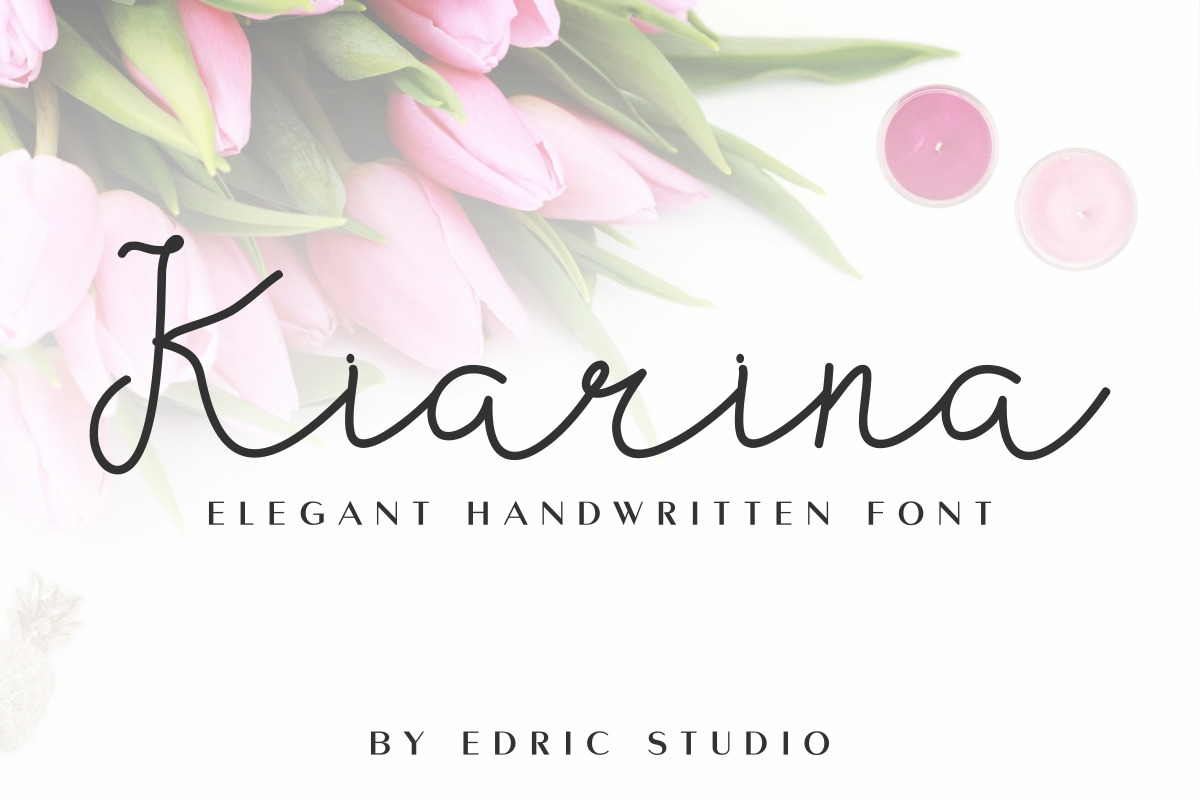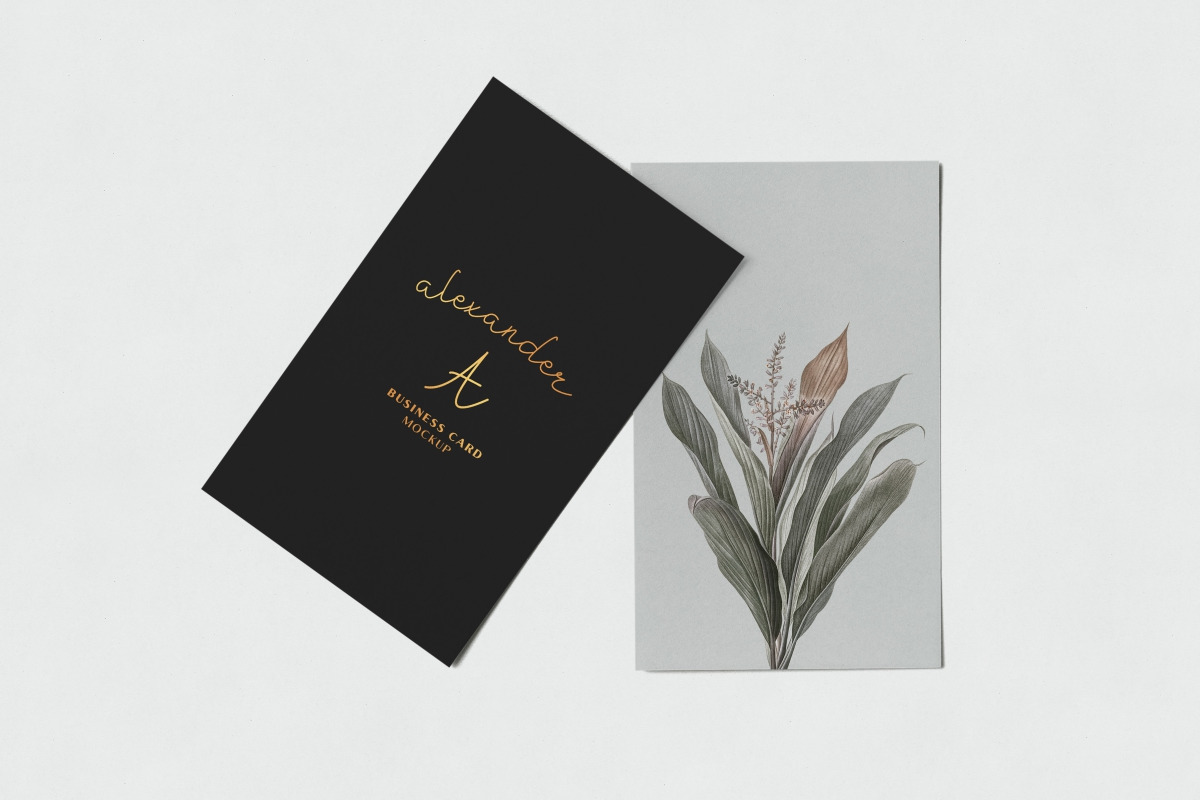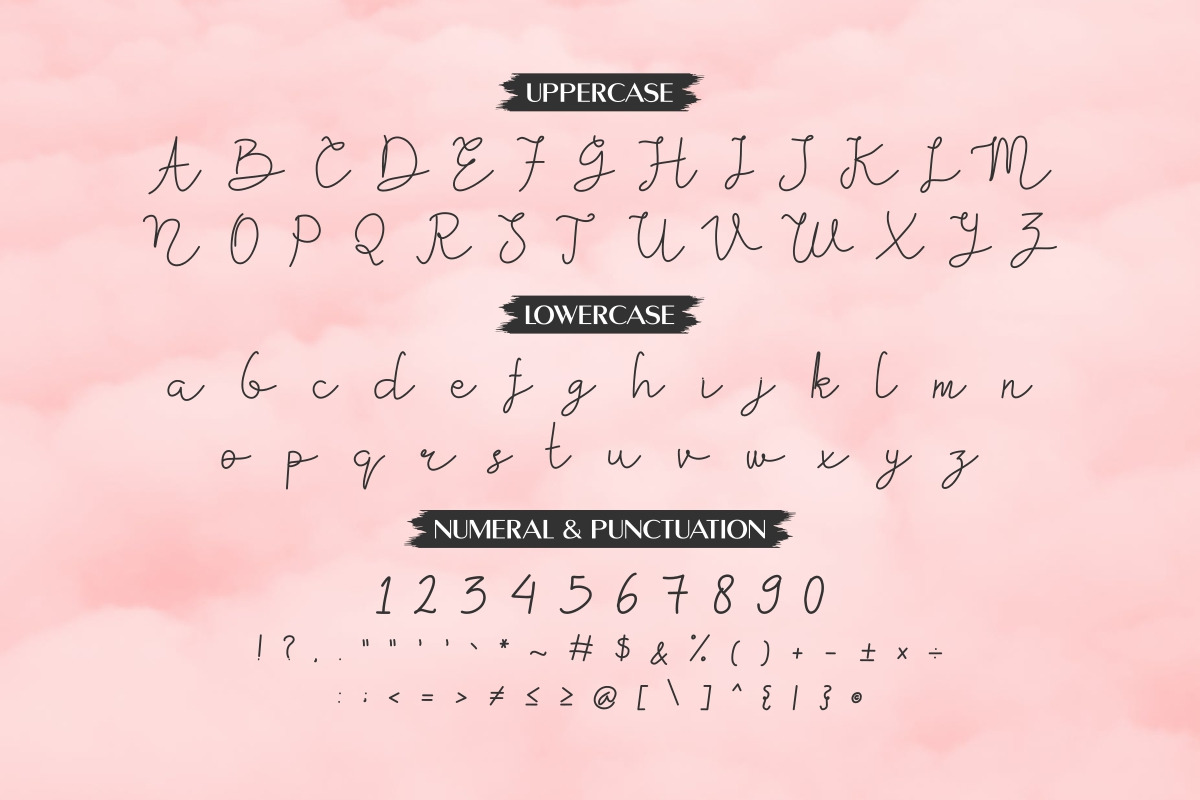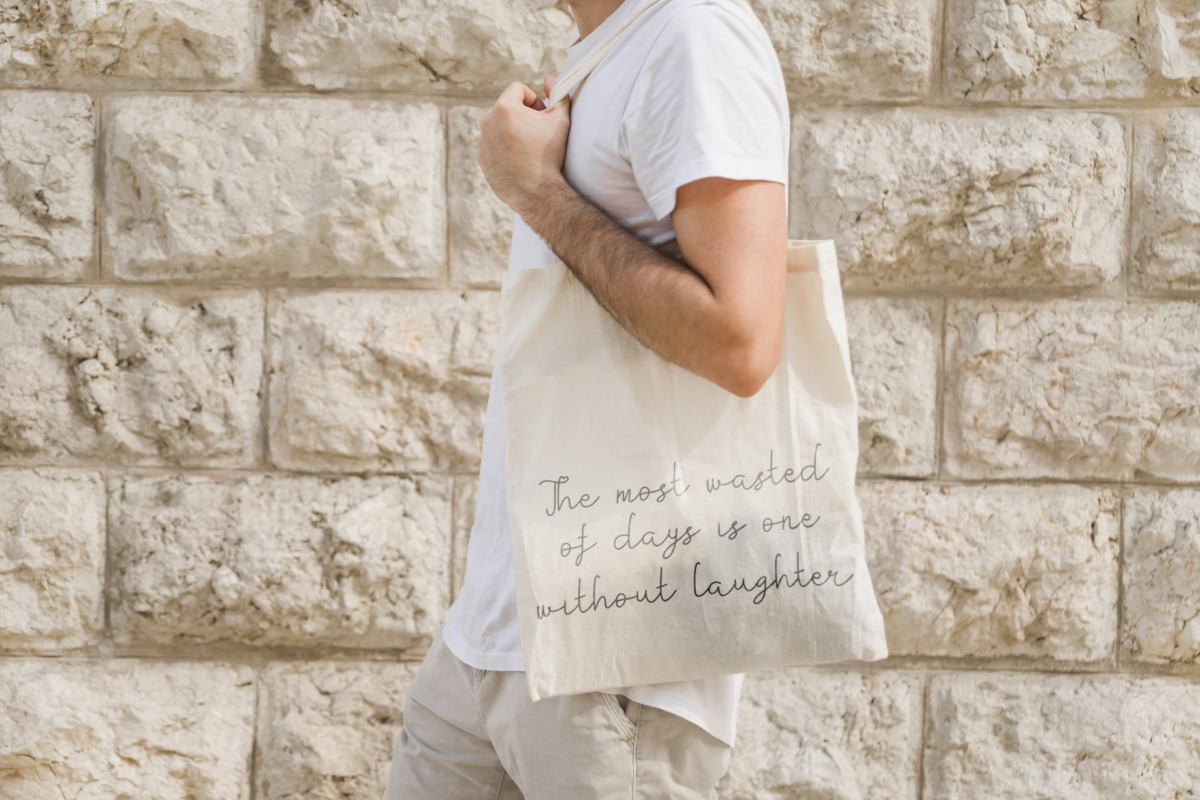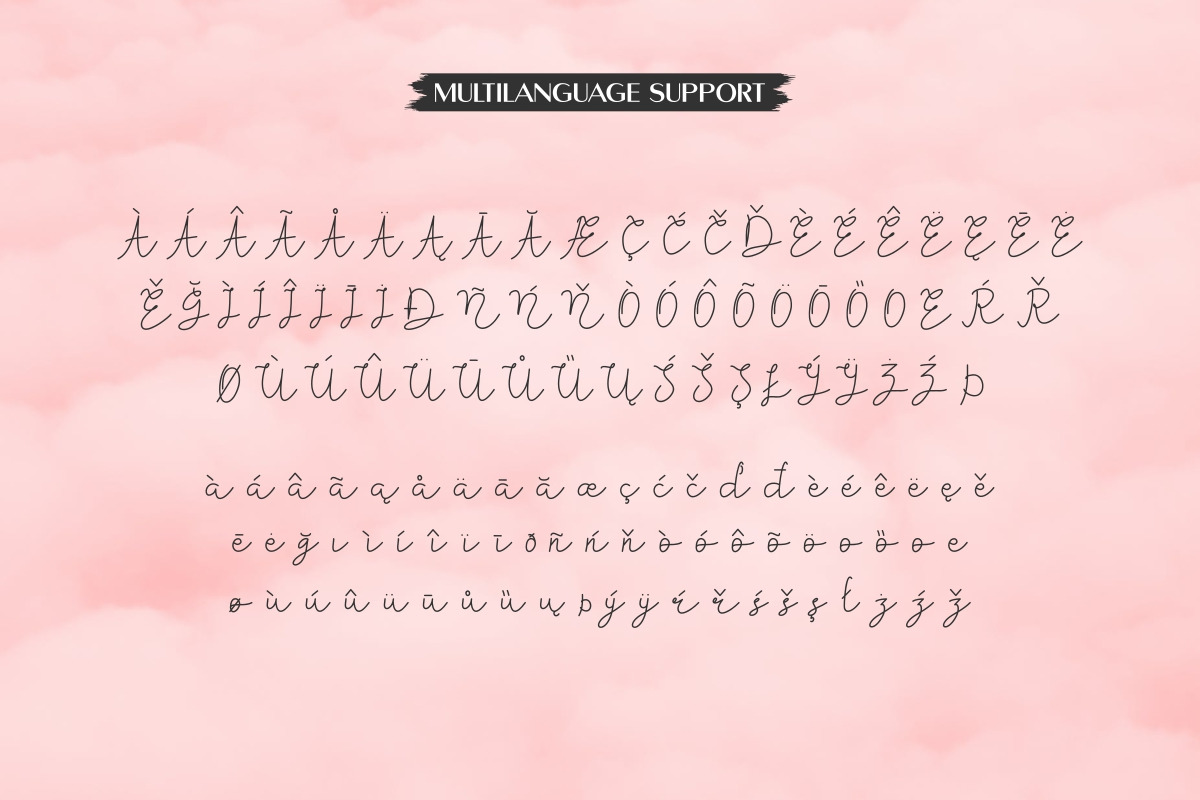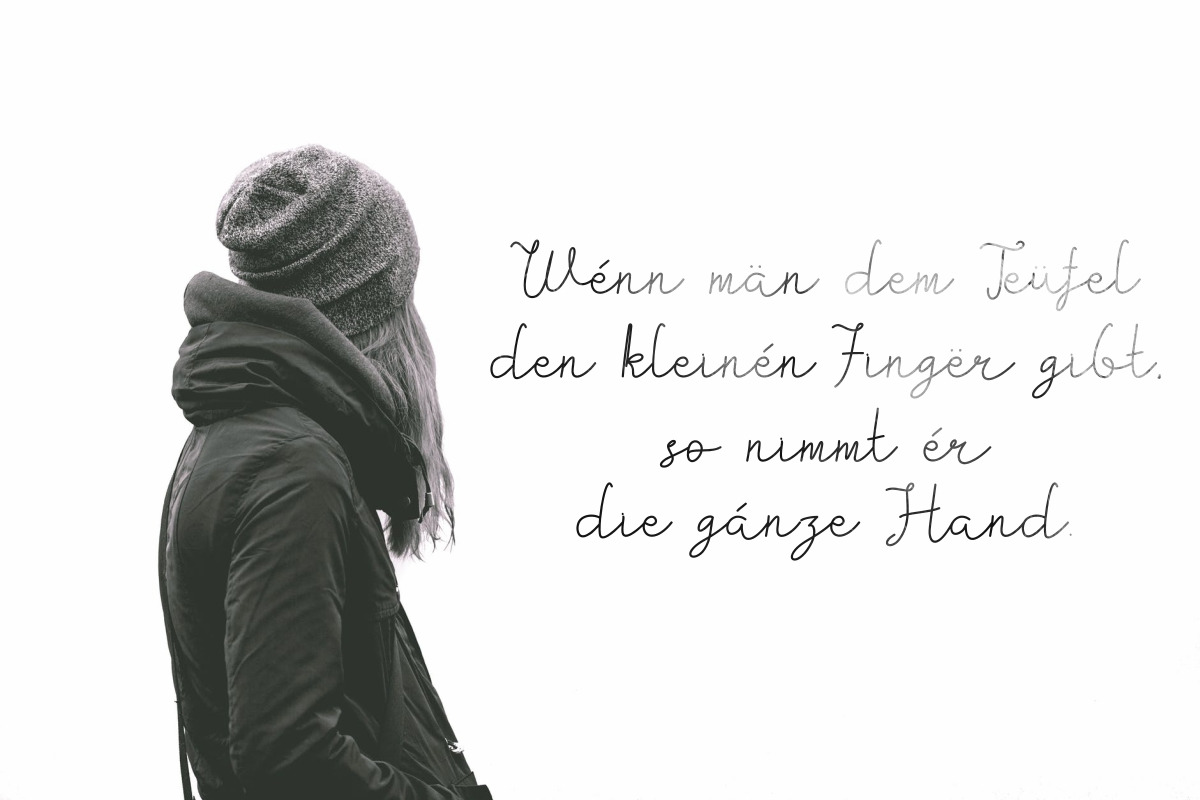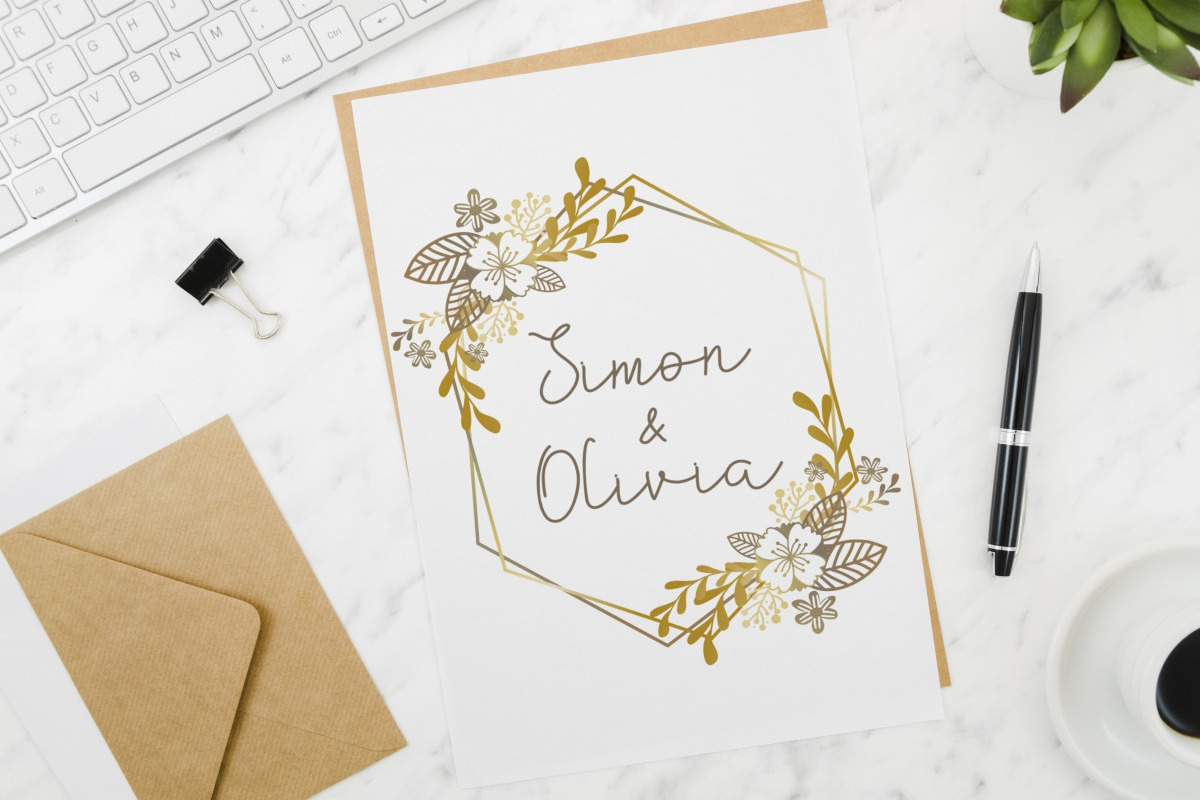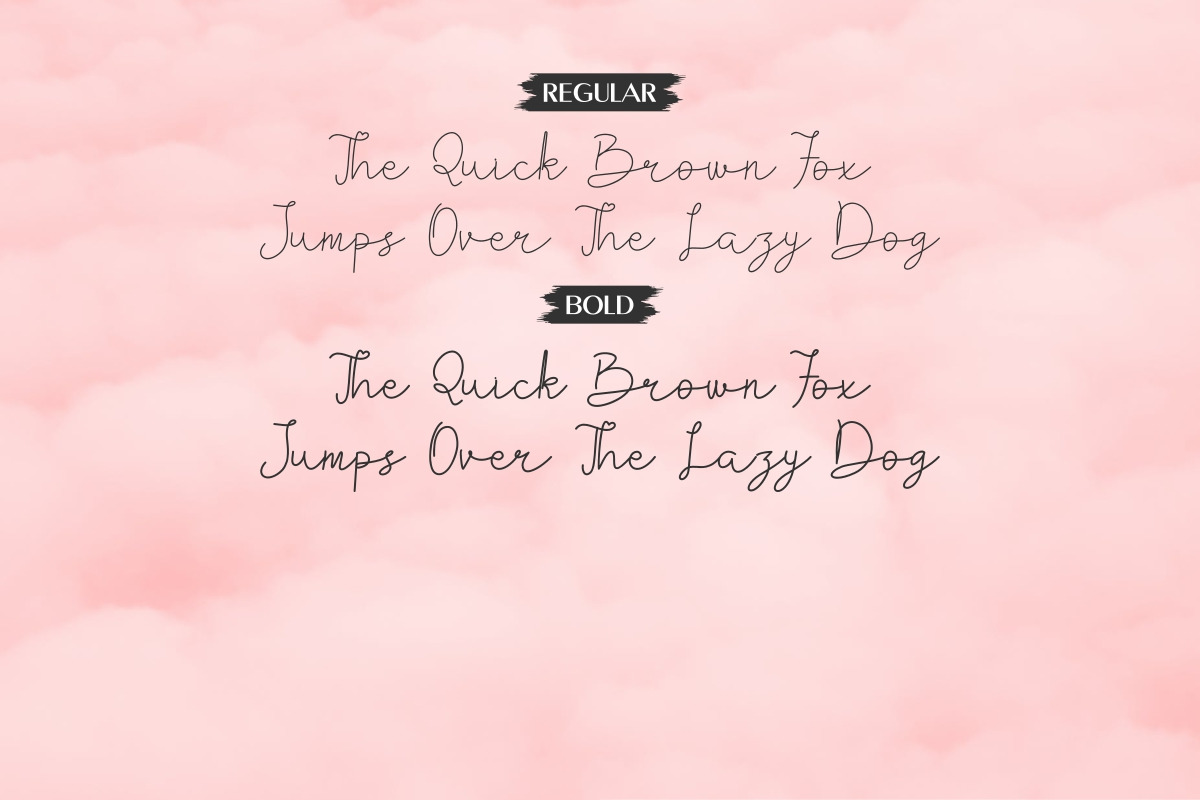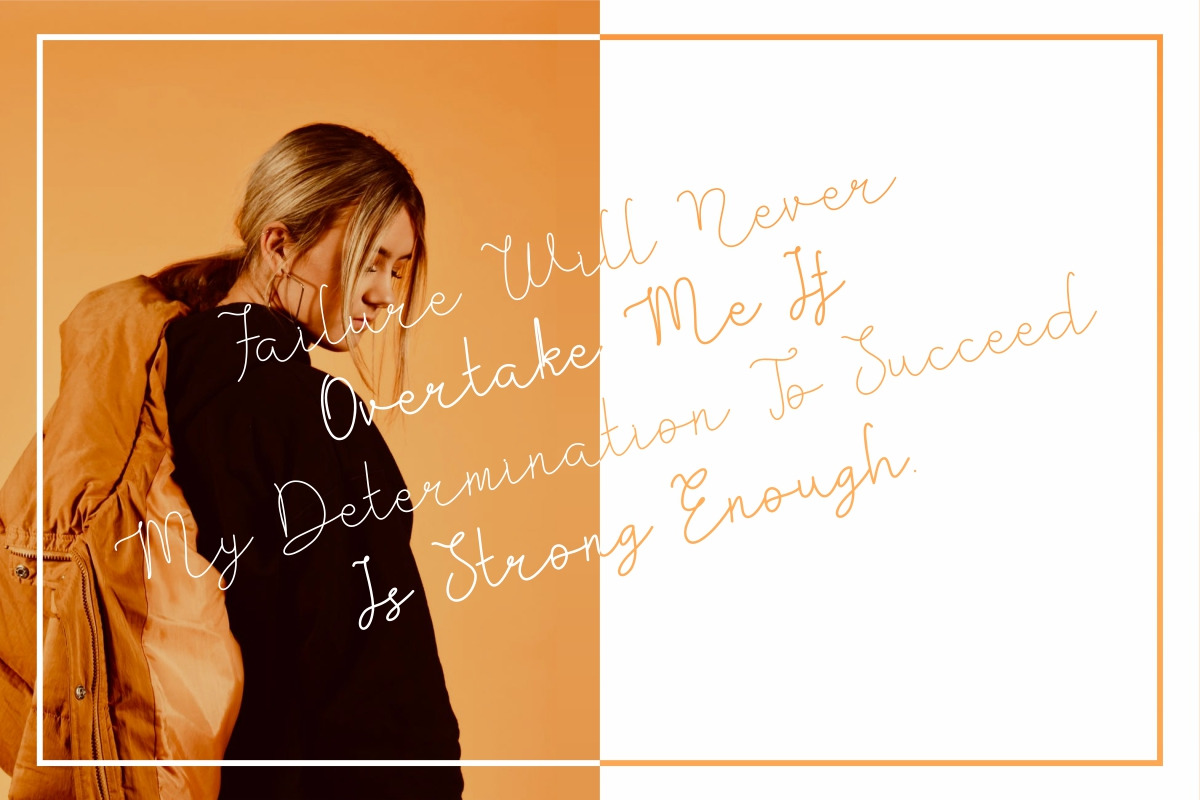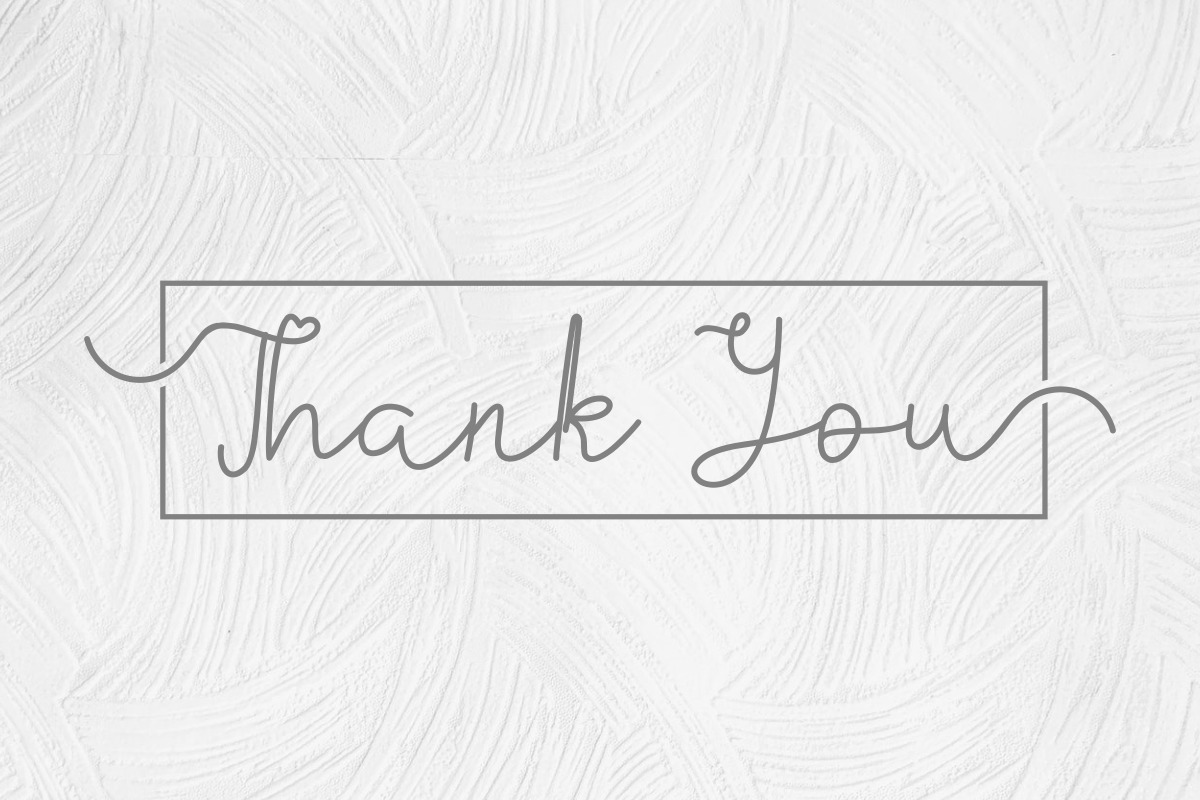
Kiarina Handwriting Font
Please welcome our newest typeface : Kiarina Handwriting Font!
This is a new script handwritten style font. It has a beautiful and natural glyphs. Will be awesome for any designs projects.
Kiarina Handwriting comes with two styles : reguler and bold. It also comes with multi languages.
Kiarina Handwriting has a natural elegant glyph that will be perfect for card, flyer, brochure, branding, logotype, wedding, advertising, promotion, photography or any other design projects. It is so elegant, classic and beautiful.